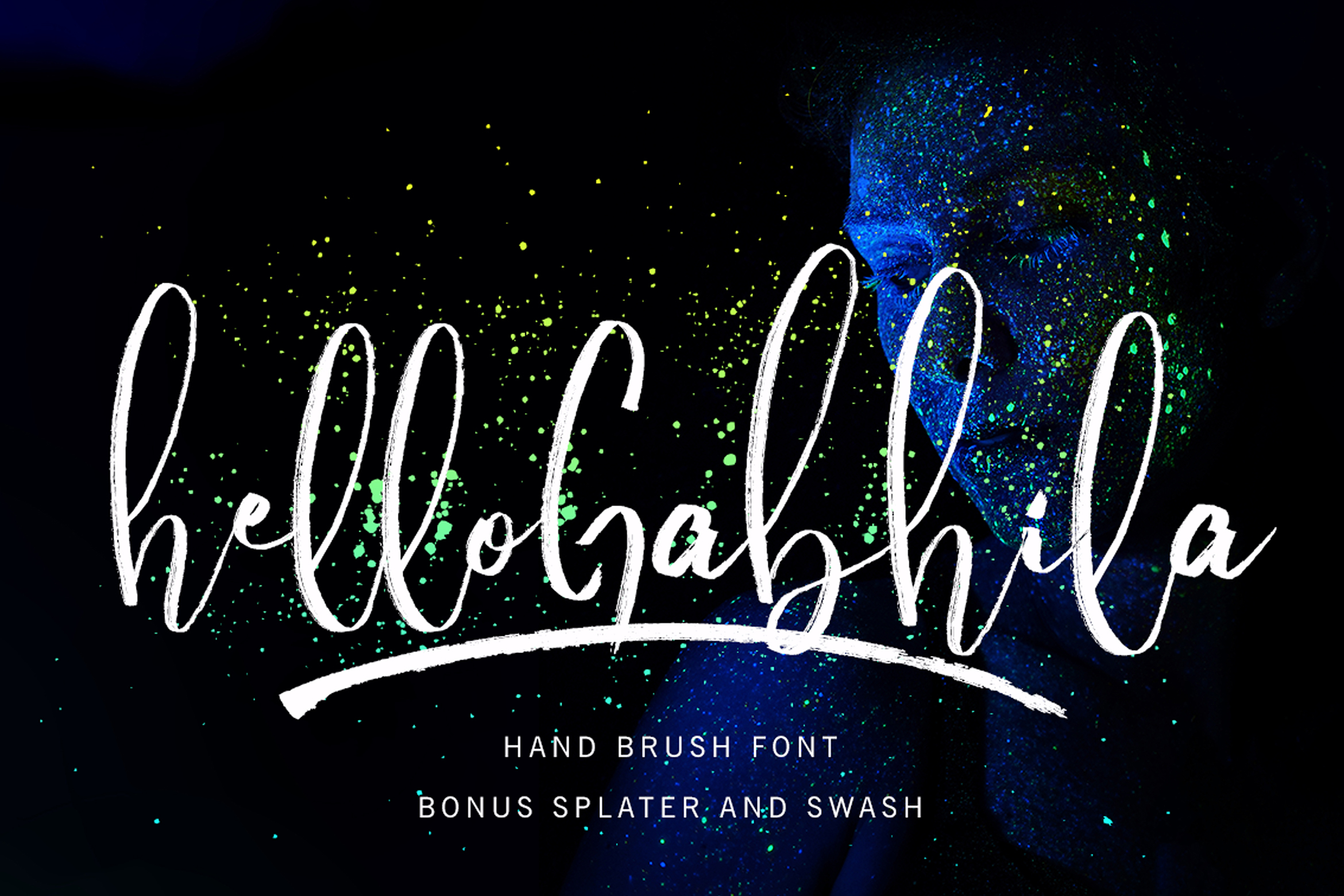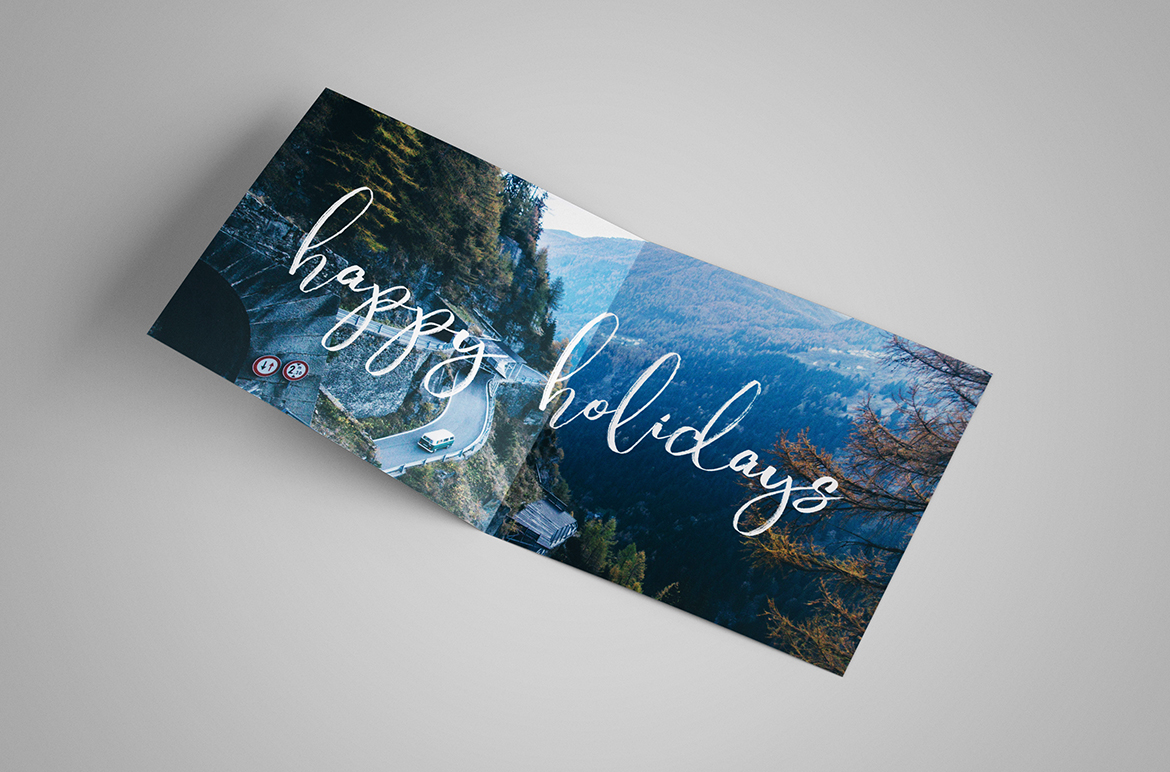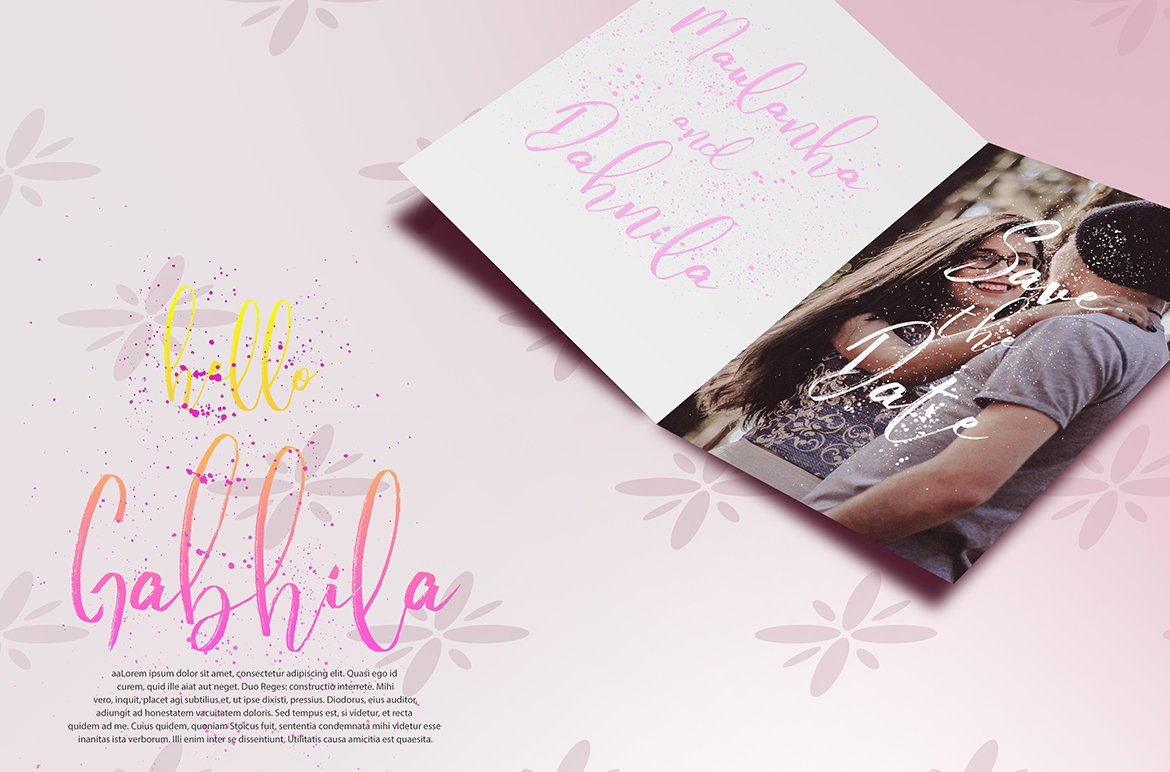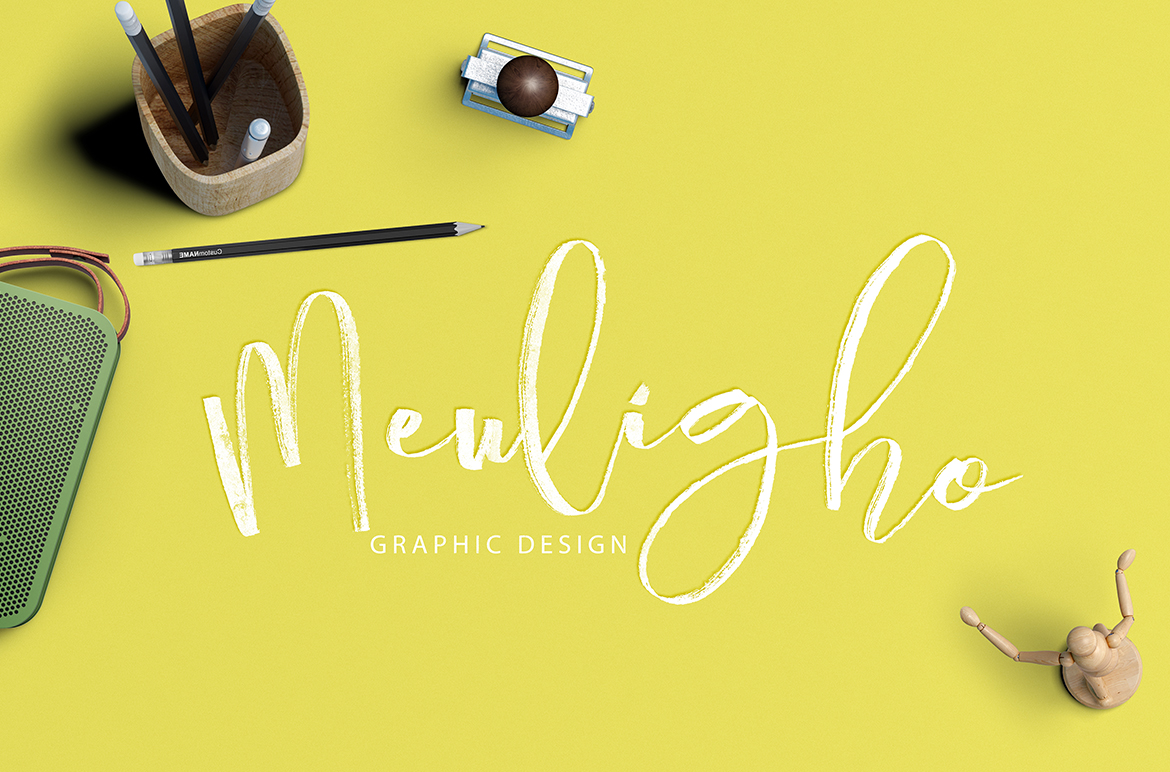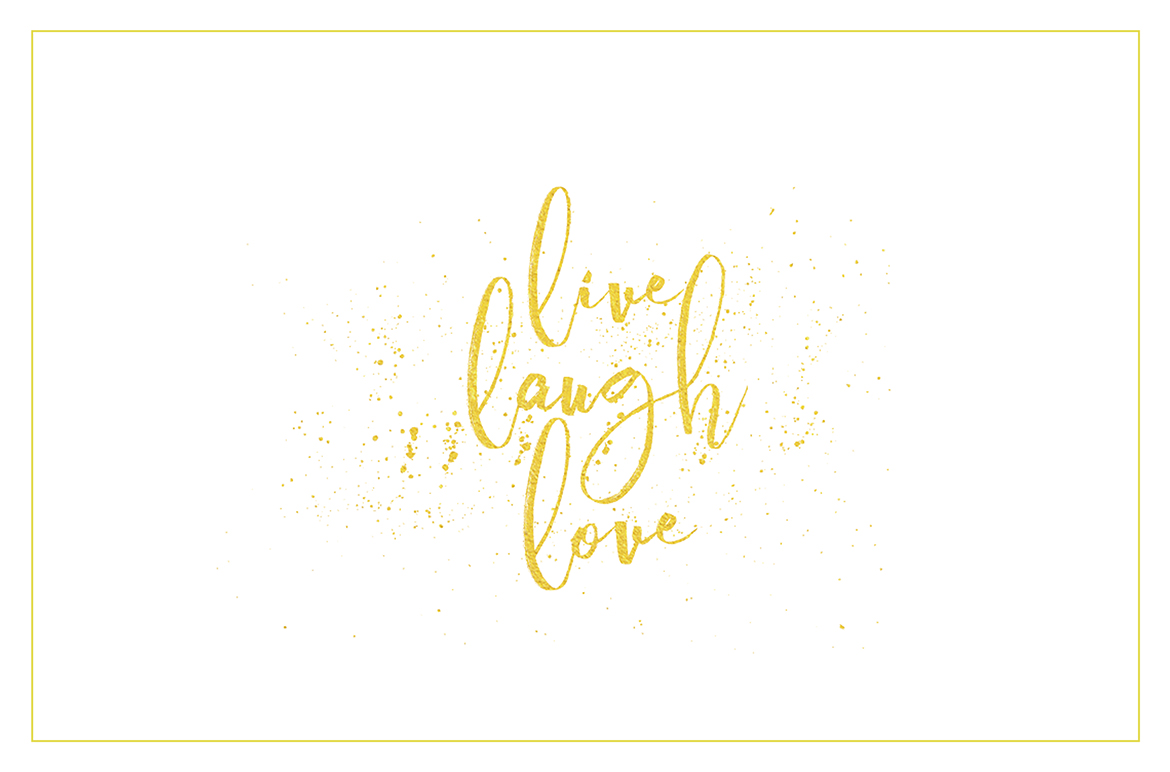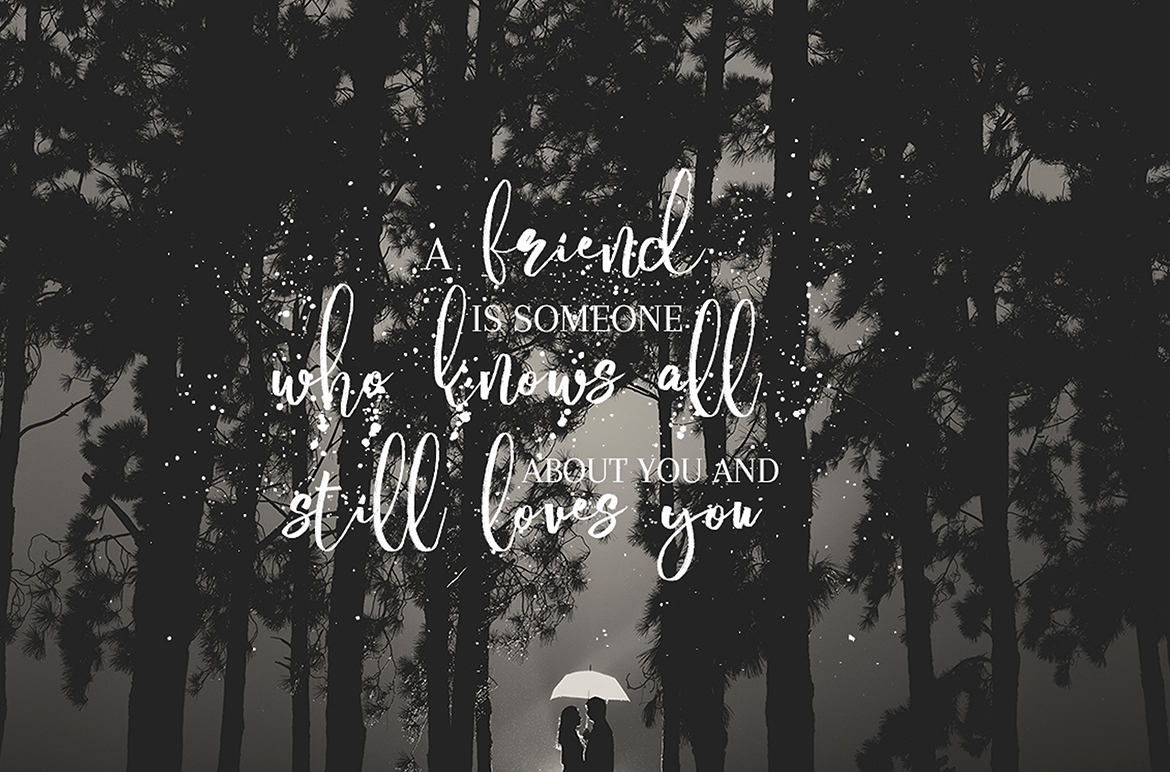
HomeScript FontsHello Gabhila Font Script Fonts Hello Gabhila Font FacebookXPinterestWhatsApp Hello Gabhila Font Poster 2 Hello Gabhila Font Poster 3 Hello Gabhila Font Poster 4 Hello Gabhila Font Poster 5 Hello Gabhila Font Poster 6 About Hello Gabhila Font Hello Gabhila is a brush script font that comes with bonus swashes & splatters. DOWNLOAD NOW People also explored My Dear Font Angasa Wangi Font Thin in Bold Font Felicity Font The Farm Font Bravenheart Font Karlberg Font Rainbow Bright Font Vriegbe Font 309 0 TagsHello Gabhila Font Previous articleAmatira FontNext articleHaunted Eyes Font LEAVE A REPLY Cancel reply Comment: Please enter your comment! Name:* Please enter your name here Email:* You have entered an incorrect email address! Please enter your email address here Website: Save my name, email, and website in this browser for the next time I comment. Personal Use Free Mullia Personal Use Free Read more about this font Green Fuz Personal Use Free Read more about this font Heart Memory Personal Use Free Read more about this font Angista Script Personal Use Free Read more about this font BLOG To increase your work productivity, choose the most readable fonts. In today's fast-paced work environment, where digital communication and information consumption are integral to our daily routines, the choice of fonts can significantly impact... Modern Sans-Serif Fonts That Brands Love in 2025 Fonts That Capture the Spirit of New York City Using Fonts in Digital Marketing: Tips to Strengthen Your Brand Identity